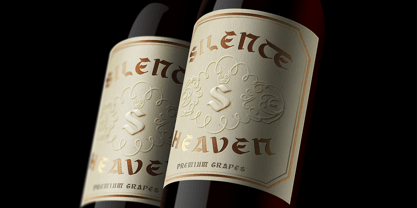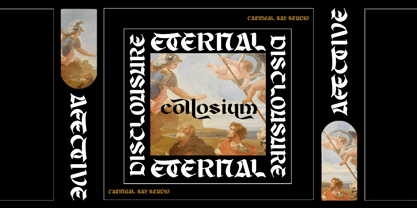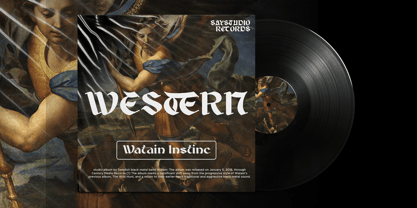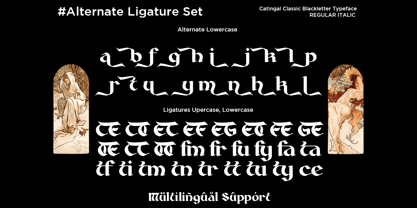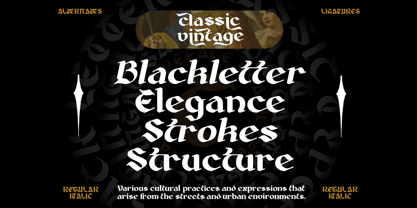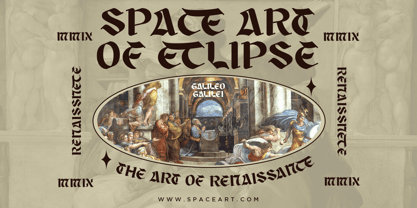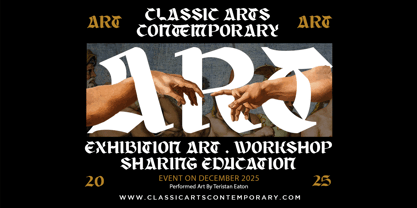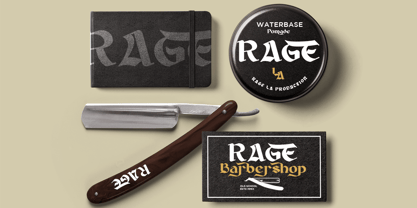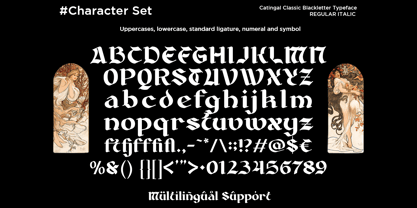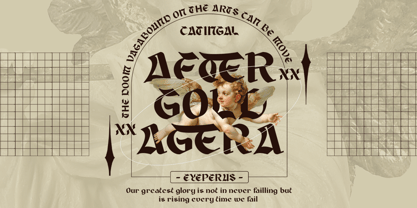
Catingal
by Say Studio
The Catingal Font Family was designed by Mussyayin and published by Say Studio. Catingal contains 2 styles and family package options. More about this family
Catingal is a classic blackletter typeface inspired by medieval manuscripts, Gothic calligraphy, and Renaissance artistry. Featuring sharp strokes, elegant curves, and authentic blackletter details, this typeface blends historical aesthetics with contemporary usability. Complete with regular and italic styles, over 20 alternate characters, 27 ligatures, multilingual support, numerals, and symbols, Catingal offers exceptional flexibility for premium typography projects.
Crafted for sophisticated branding and artistic expression, Catingal is ideal for luxury logos, editorial headlines, book covers, album artwork, wine labels, tattoo studios, barbershops, fashion branding, historical events, certificates, invitations, and premium packaging. Its distinctive Gothic letterforms create a powerful visual presence while maintaining excellent readability for display applications across both print and digital media.
Whether you're designing medieval-inspired identities, Renaissance-themed artwork, premium branding, metal band merchandise, luxury products, or elegant editorial layouts, Catingal delivers timeless craftsmanship and dramatic visual impact. The rich collection of alternate characters and ligatures allows designers to create authentic custom lettering with refined blackletter elegance for memorable creative projects.
• Regular and Italic
• Stylistic Ligature
• Stylistic Alternate
• Uppercase and Lowercase
• Number, Symbol, and Punctuation
• Multi Language Support